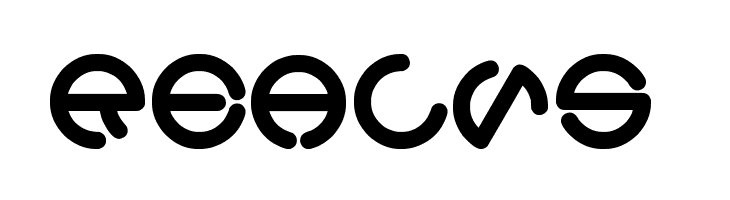
A geometric, futuristic font with bold, circular elements and strong visual impact.
A futuristic, geometric font with bold, circular strokes and a modern aesthetic.
A sleek, modern font with thin lines and smooth curves, ideal for minimalist designs.
A distressed, textured font with a vintage, industrial feel.
A bold, rounded sans-serif font with a modern and approachable style.
A whimsical and decorative font with ornate, hand-drawn letterforms.
A bold, vintage-style font with textured, diagonal stripes and geometric shapes.
A bold, playful font with thick strokes and rounded edges.
A playful, bold, and hollow outlined font with a whimsical style.
A playful, bold font with a hand-drawn, whimsical style.
A classic serif font with elegant strokes and pronounced serifs.
A bold, graffiti-style font with bubble-like letters and urban flair.
A bold, gothic-style font with sharp, angular edges and dramatic flair.
A bold, condensed font with a geometric and modern style.
A bold, condensed italic font with a dynamic and futuristic style.
A bold, condensed font with a geometric and modern style.
A bold, condensed, and italicized font with a dynamic and modern style.
A bold, geometric font with an expanded width and strong presence.
A bold, expanded italic font with a dynamic and modern style.
A bold, italic, and dynamic font with a geometric and modern style.
A bold, angular font with a dynamic and modern style.
A bold, expanded font with sharp, angular lines and a modern geometric style.
Bold, italicized, and expanded with a modern, dynamic style.
A bold, italicized font with a modern, energetic style and high contrast.
A bold, angular font with a leftward slant and a futuristic, industrial feel.
A bold, geometric font with tall, narrow characters and sharp angles.
A bold, italicized font with a shadow drop effect, exuding a dynamic and futuristic style.
A bold, angular font with a shadow drop effect for a three-dimensional look.